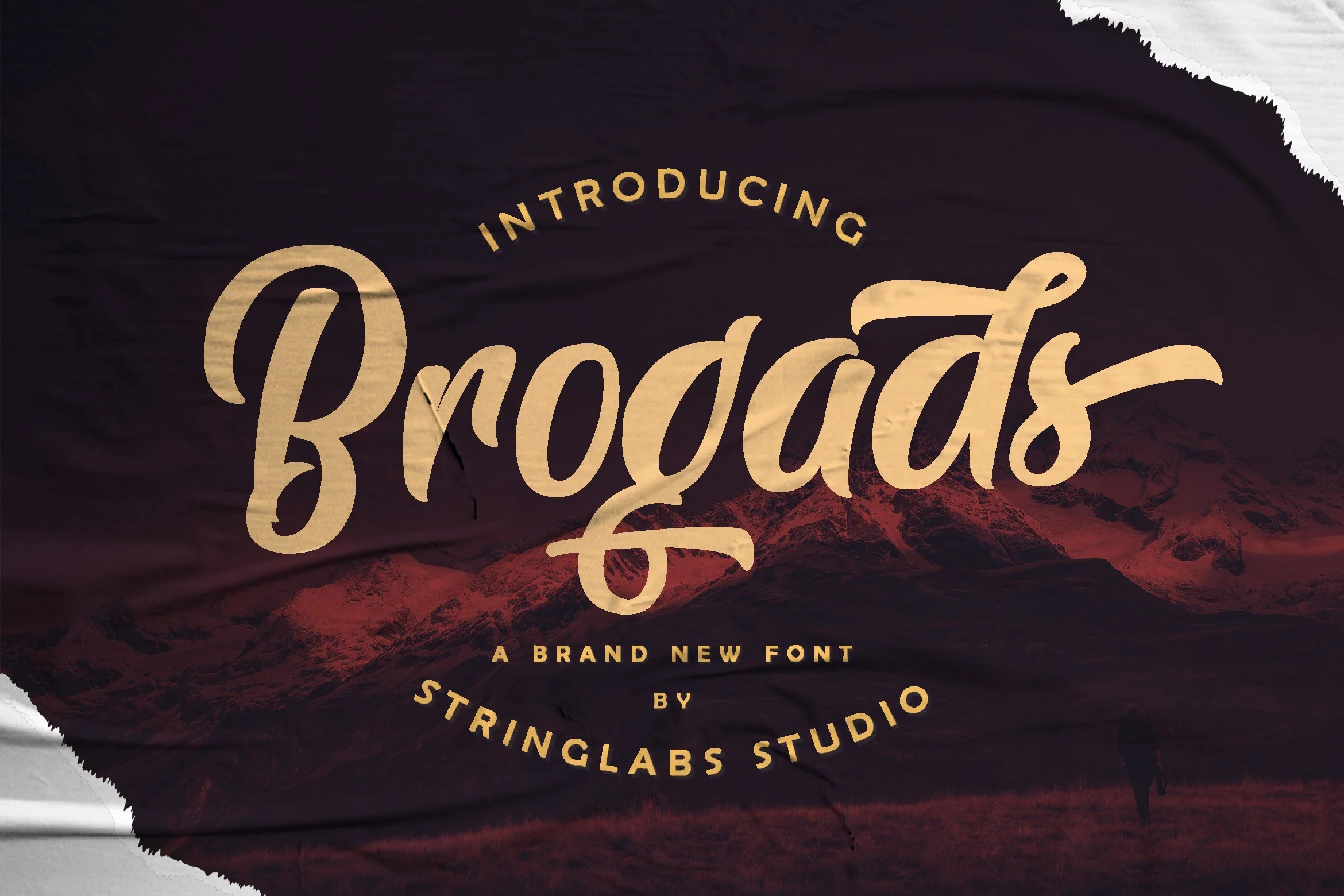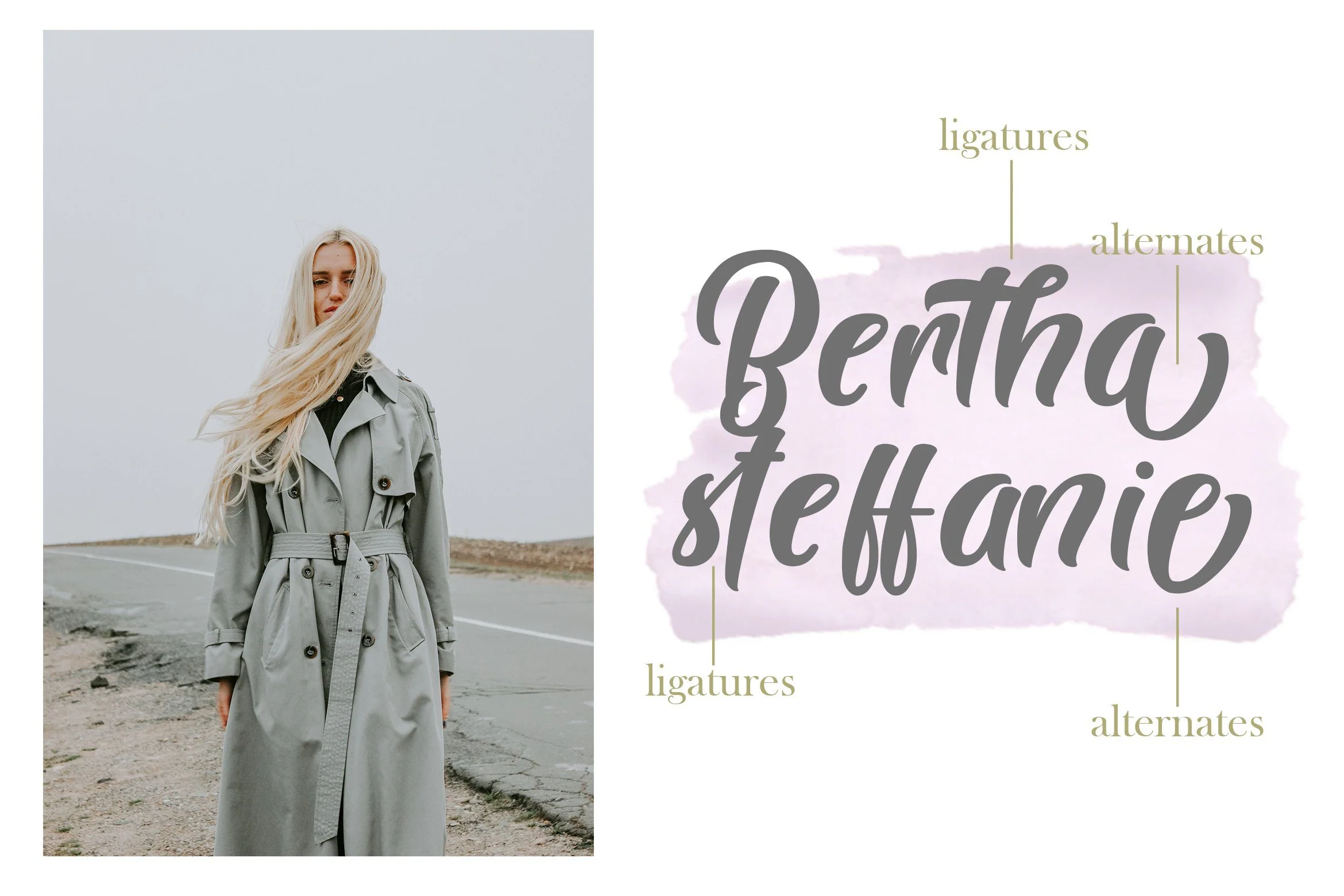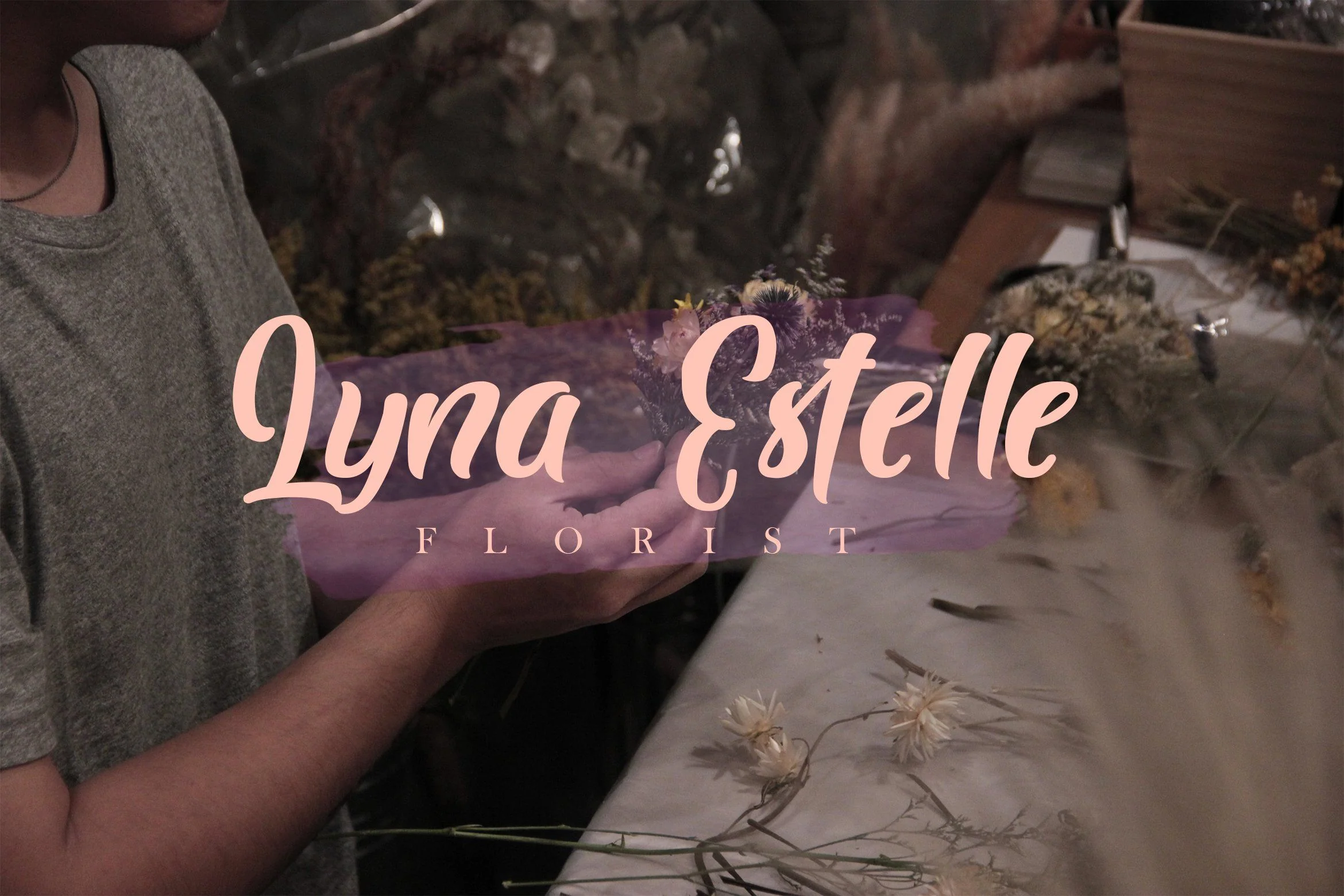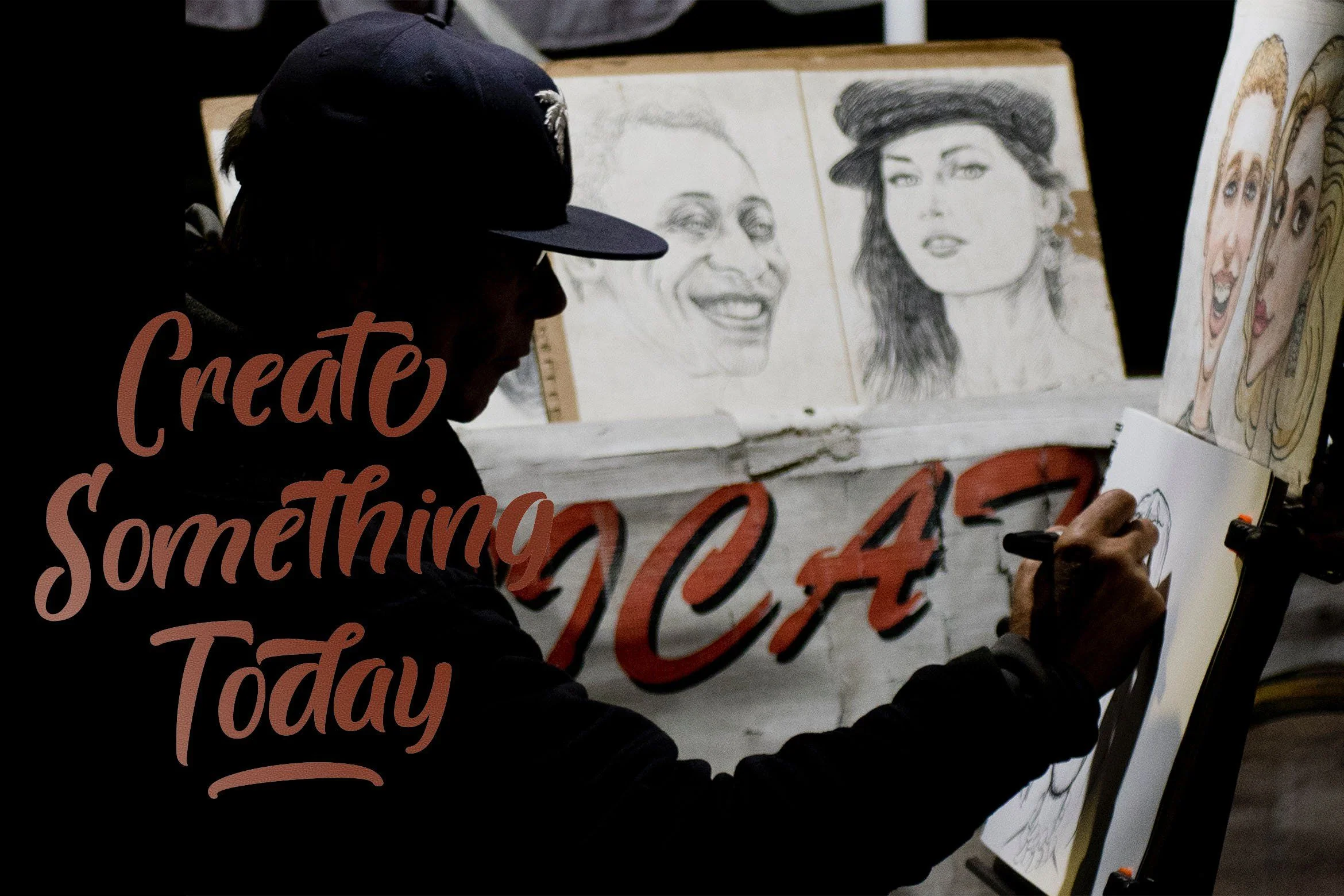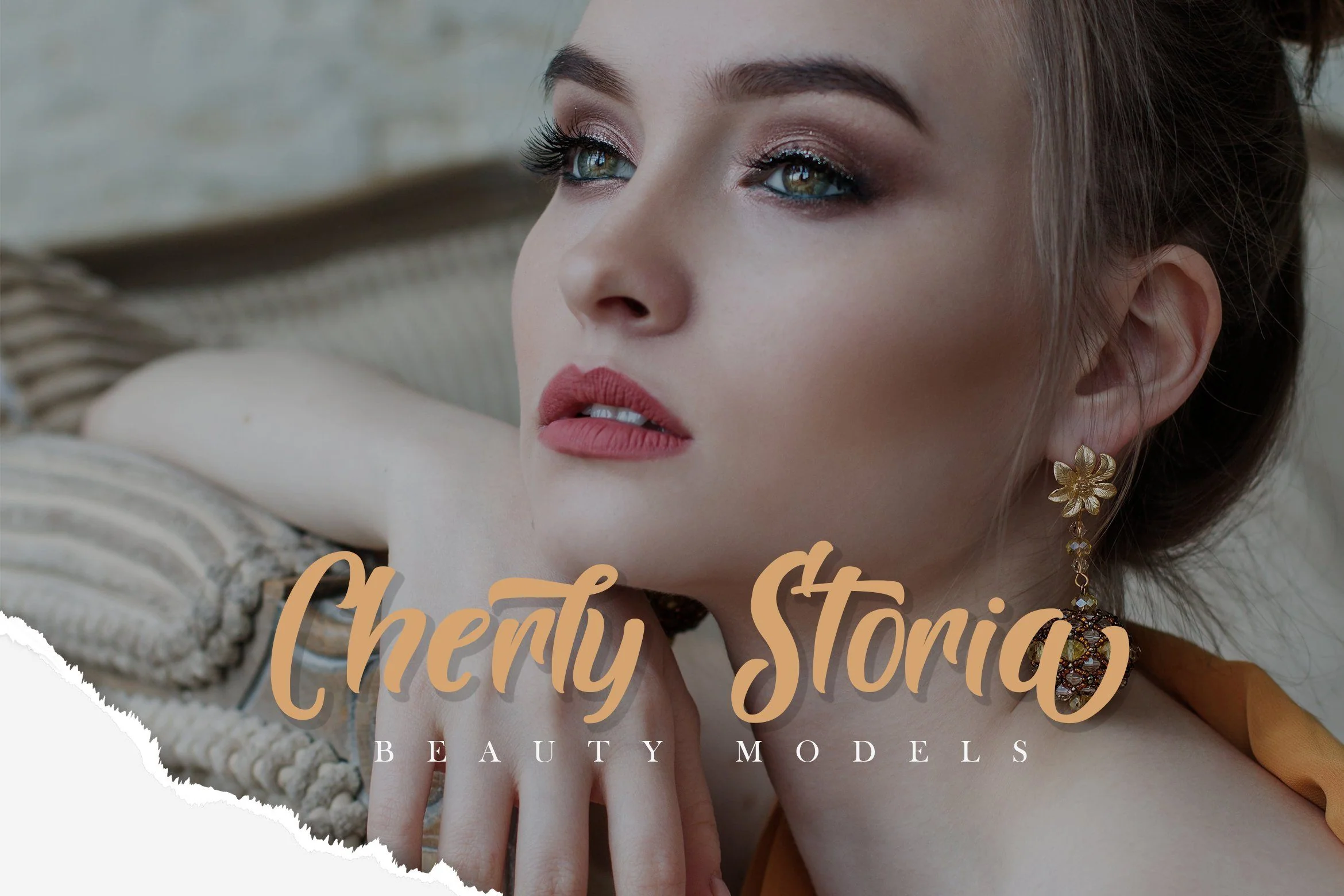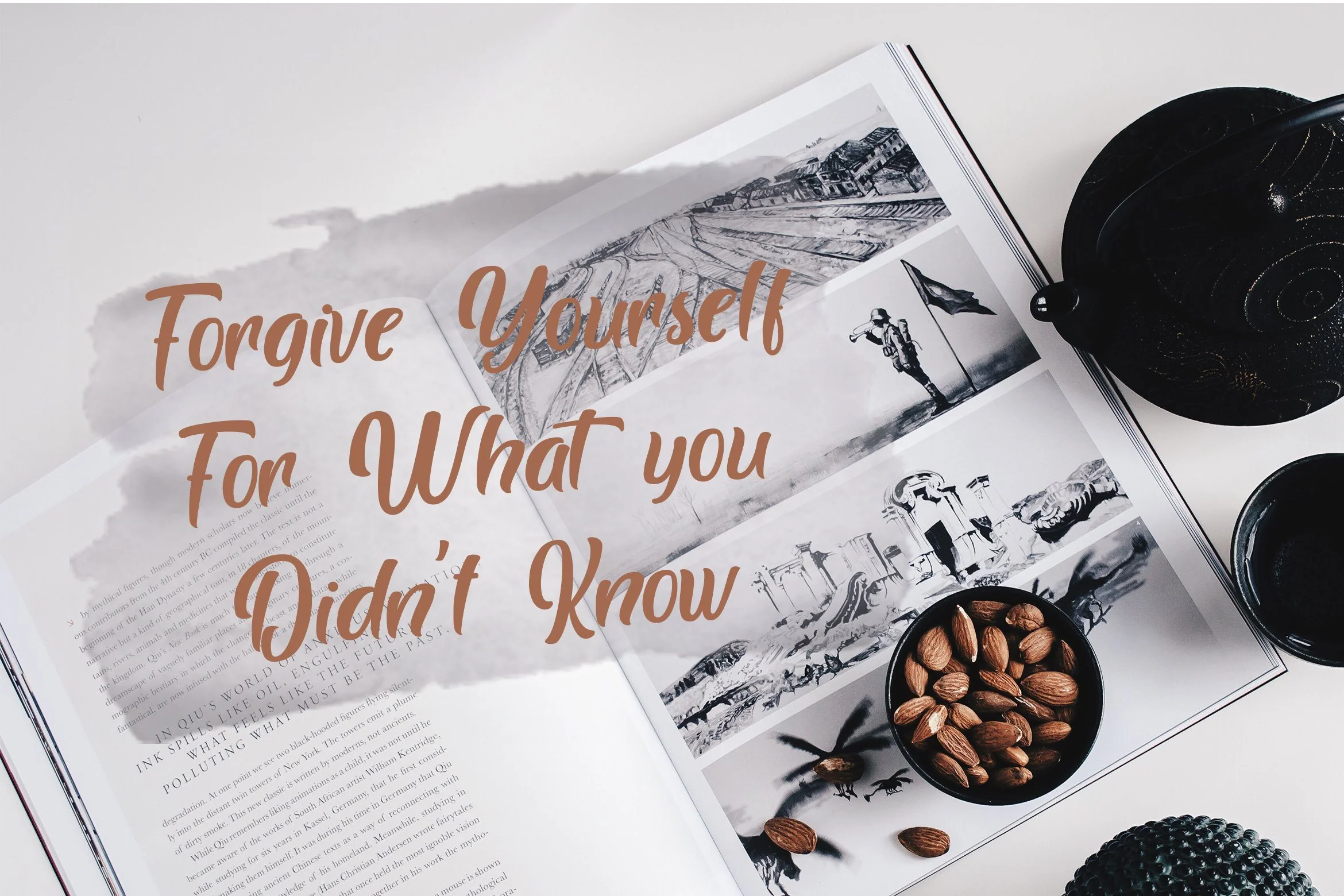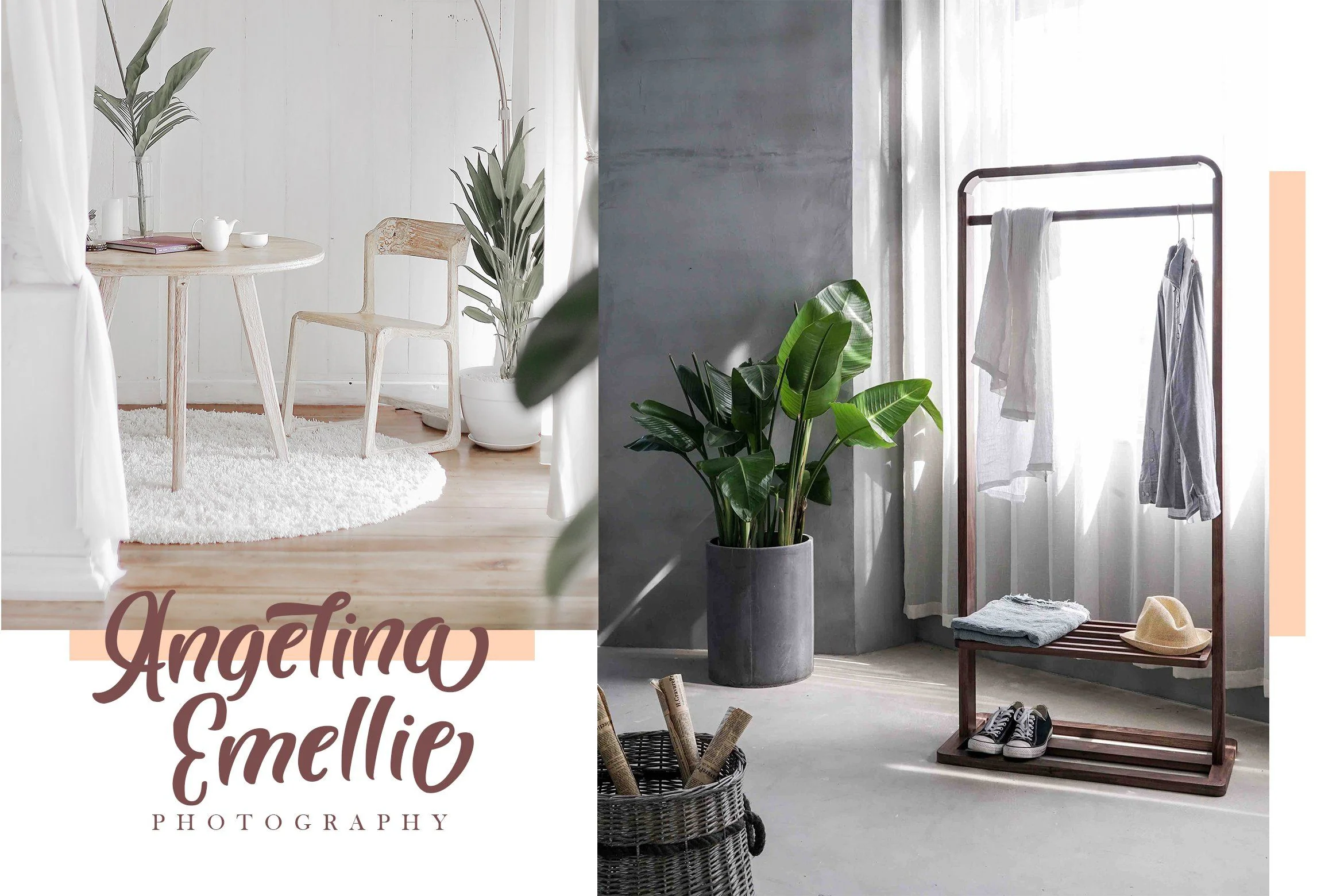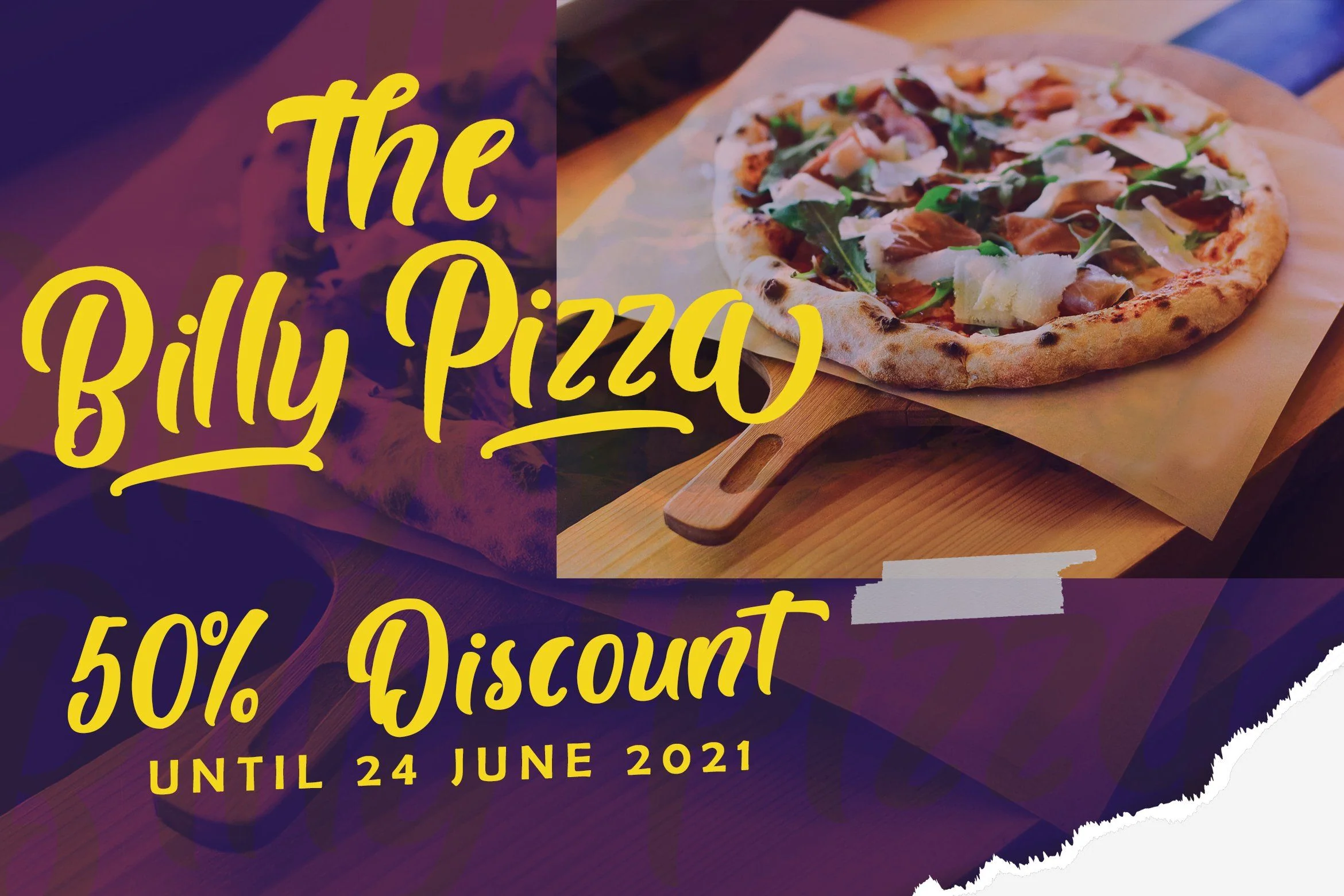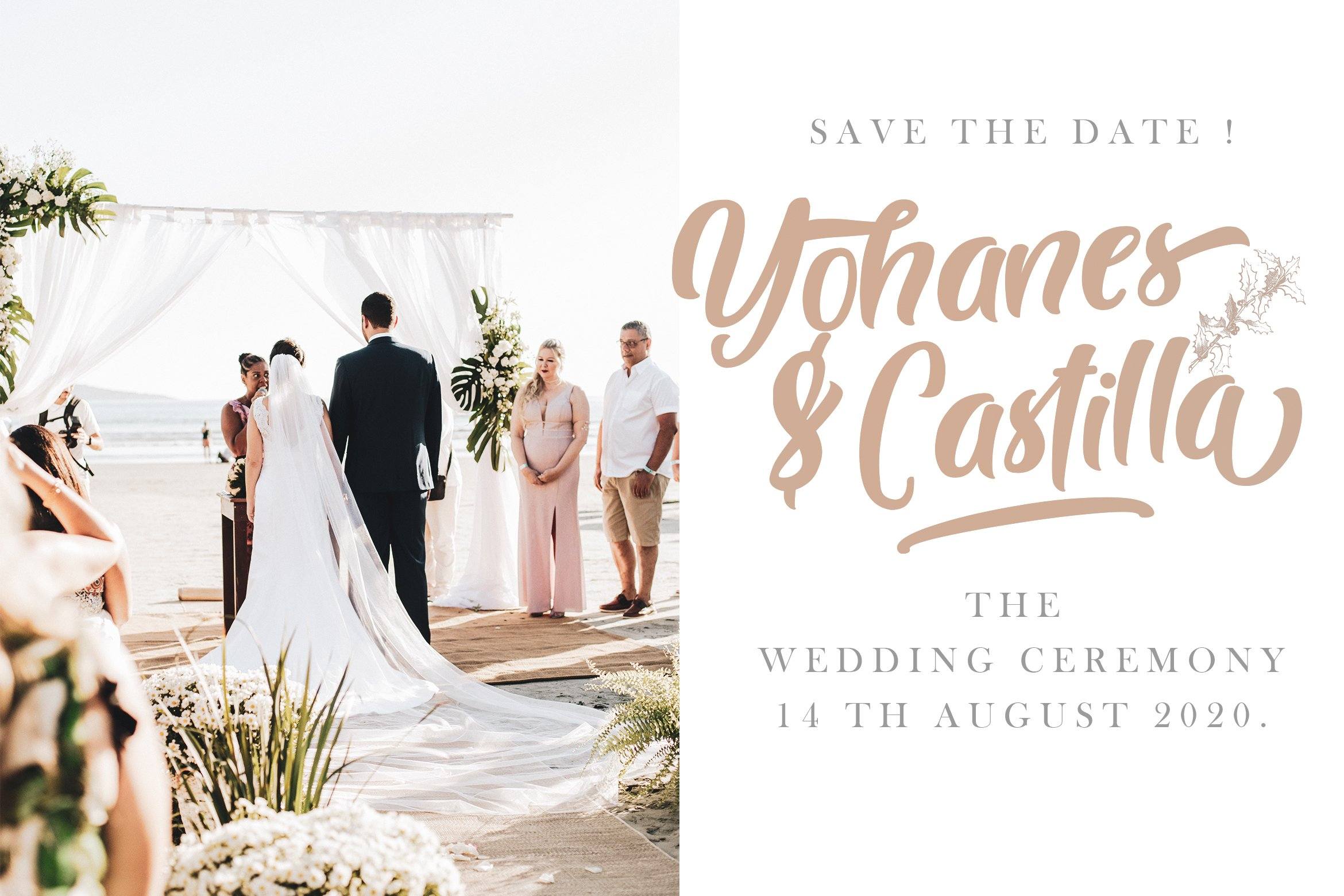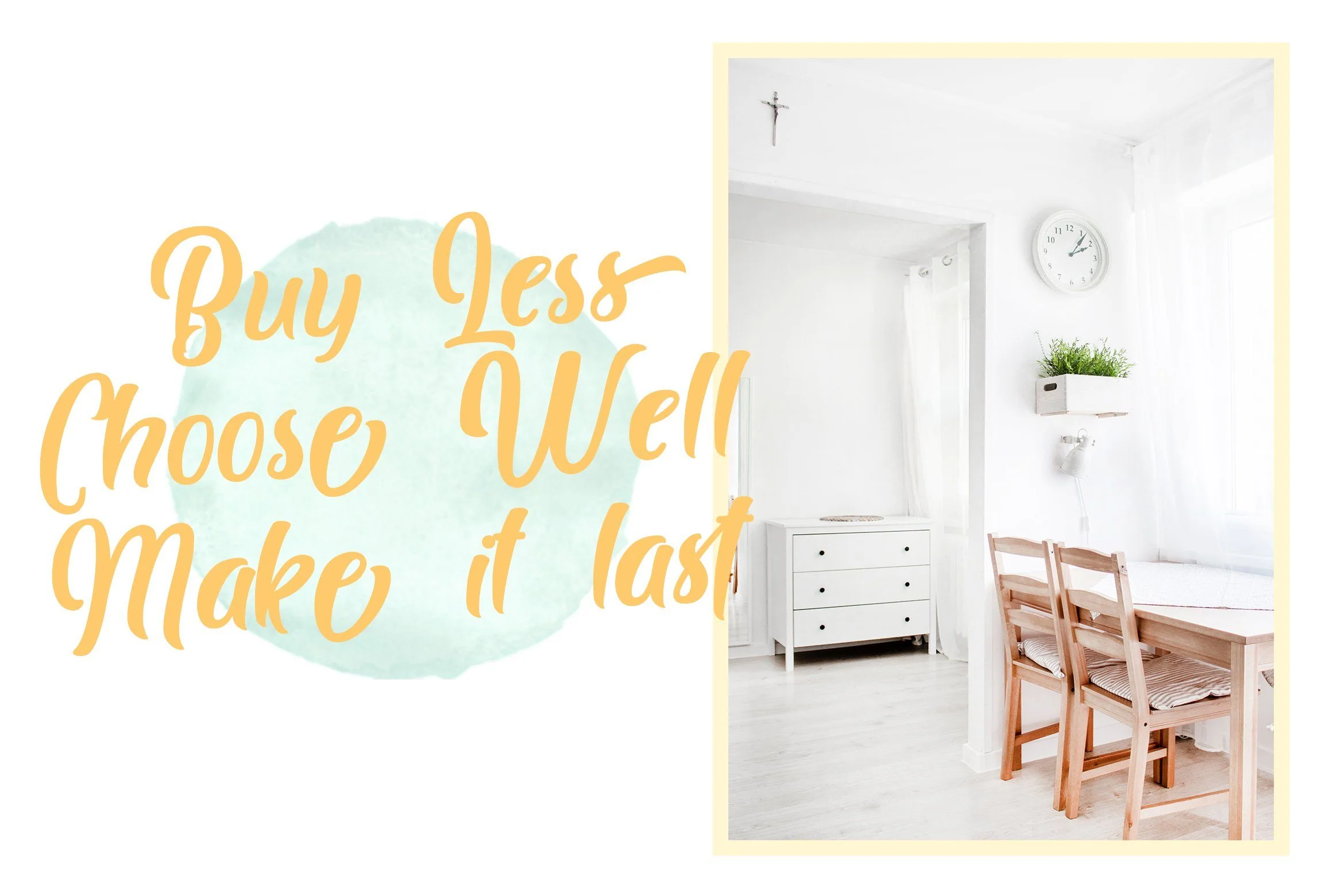
Brogads - Bold Script Retro Font
Introducing Brogads - Bold Script Retro Font
Brogads is a bold script font with unique design taste and a classic retro style of the 80s, trendy, vintage, and sporty. Brogads is perfect for vintage lovers, besides this font is also perfect if used for brands such as: barbershop, motorcycle club, clothing, coffee shop, shoe brands, vapor shop, hipster and many more.
This Font Template contains Classy, Elegant, Creative, Cool and has a Unique Concept.
- Stylistic Alternate
- Stylistic Set 01
- Stylistic Set 02
Introducing Brogads - Bold Script Retro Font
Brogads is a bold script font with unique design taste and a classic retro style of the 80s, trendy, vintage, and sporty. Brogads is perfect for vintage lovers, besides this font is also perfect if used for brands such as: barbershop, motorcycle club, clothing, coffee shop, shoe brands, vapor shop, hipster and many more.
This Font Template contains Classy, Elegant, Creative, Cool and has a Unique Concept.
- Stylistic Alternate
- Stylistic Set 01
- Stylistic Set 02